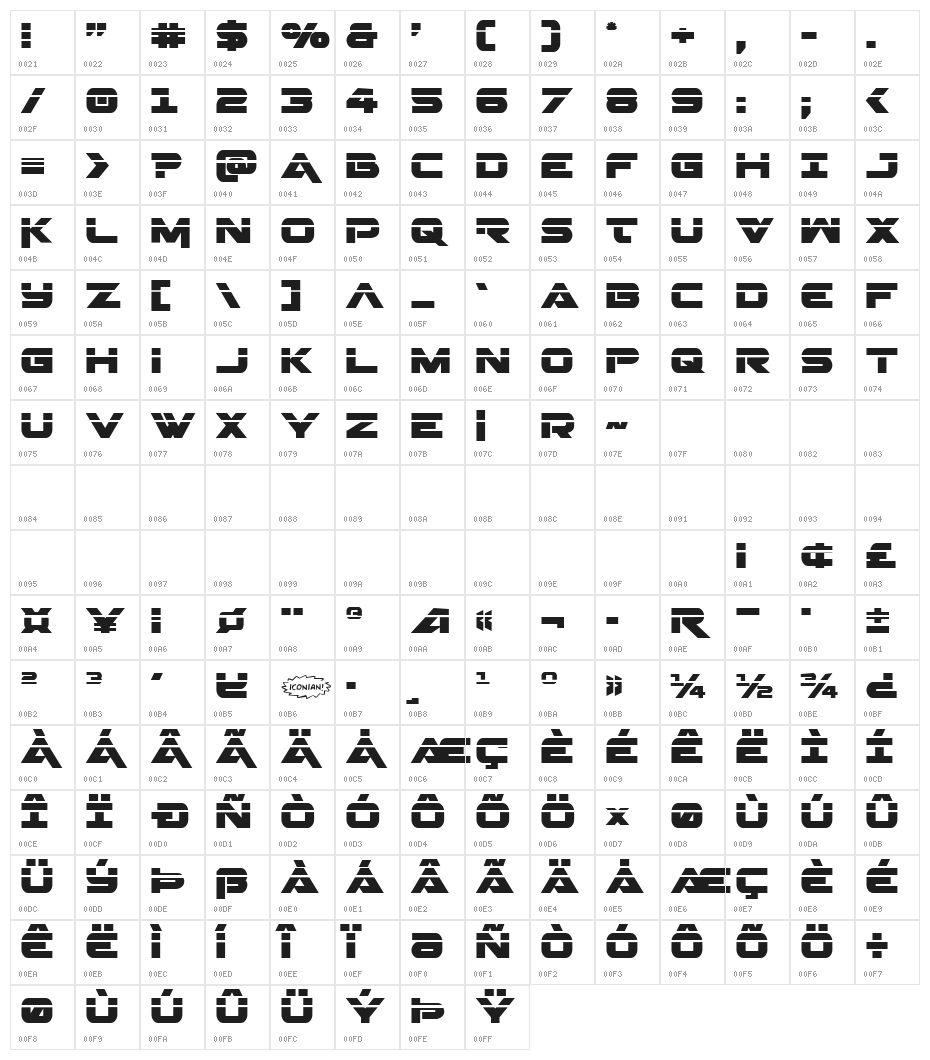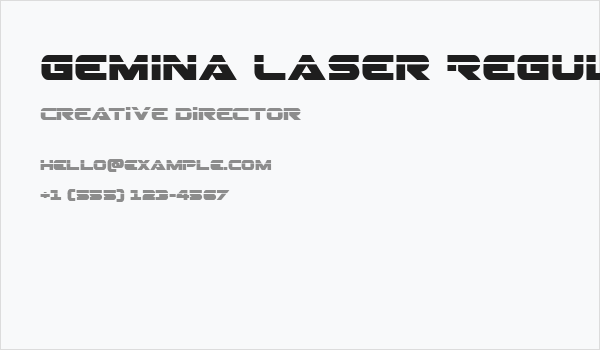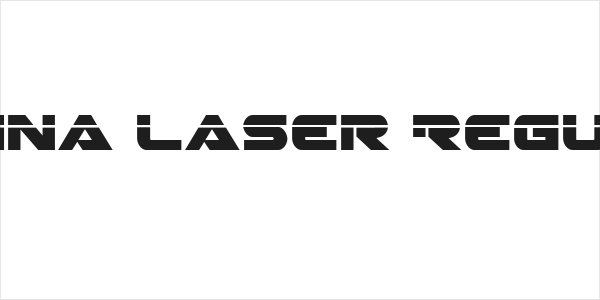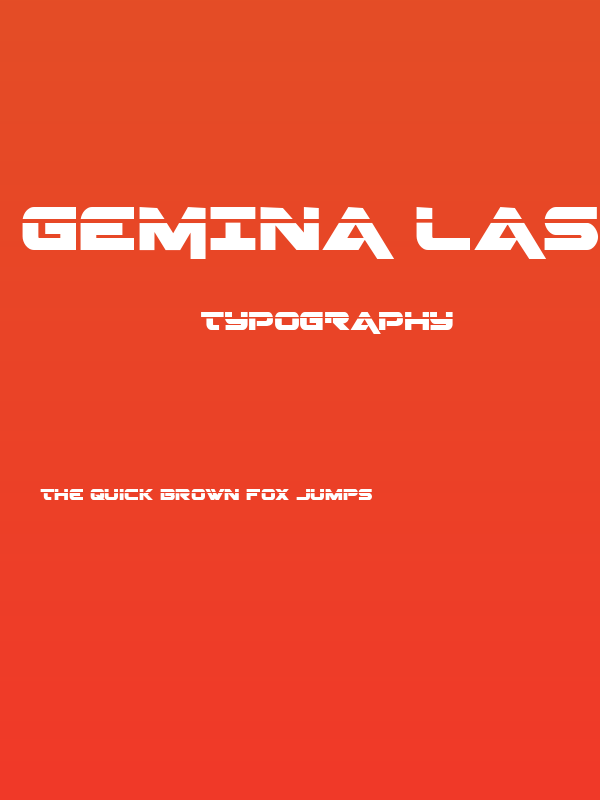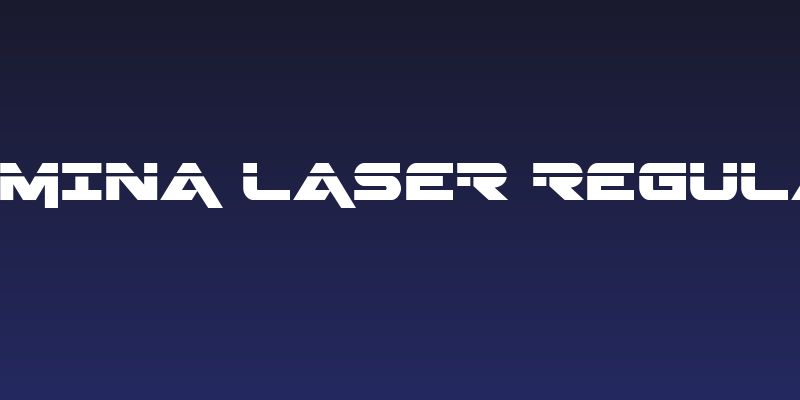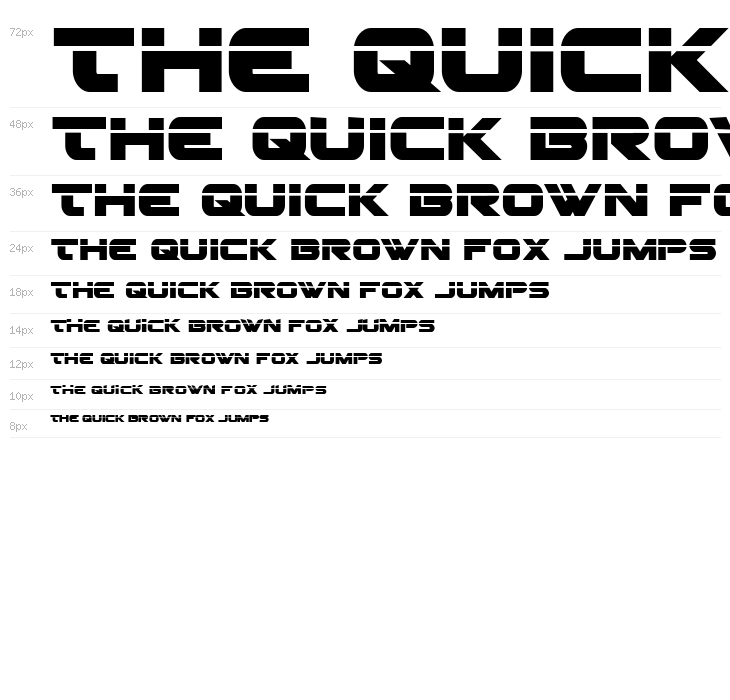
Gemina Laser Regular Font
Gemina Laser Regular Description
This font features a futuristic and geometric design, characterized by sharp angles and a bold presence. The uppercase letters are crafted with a distinct, angular style that gives a sense of movement and modernity. The lowercase letters maintain the same angular aesthetic, ensuring consistency throughout the typeface. Numbers are equally bold and geometric, making them stand out with clarity. Special characters are designed to match the overall theme, providing a cohesive look across all glyphs. This font is perfect for projects that require a modern, tech-inspired feel.
| Proposed Projects | Ideal for sci-fi themed designs, tech branding, video game interfaces, and futuristic posters. |